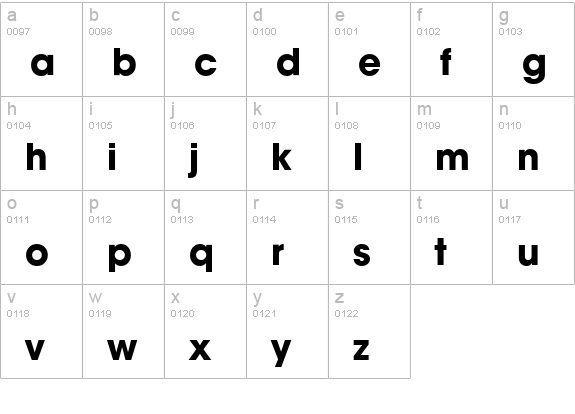
Avignon-Bold-Regular is a strong, high-contrast variant in the Avignon typeface family \xE2\x80\x94 well suited to headlines, attention-grabbing titles, and strong calls-to-action.
Avignon-Bold-Regular is a bold and sophisticated font that exudes elegance and style. With its clean lines and strong presence, this font is perfect for making a statement in your designs. The bold weight of this font commands attention and adds a touch of modernity to any project. The best part? Avignon-Bold-Regular is completely free to download at FontsMarket.com. This means you can easily access this stunning font and incorporate it into your designs without any cost. Whether you're working on branding, marketing materials, or any other creative project, Avignon-Bold-Regular is sure to elevate your work and leave a lasting impression. Download it today and start creating beautiful designs with this exquisite font.